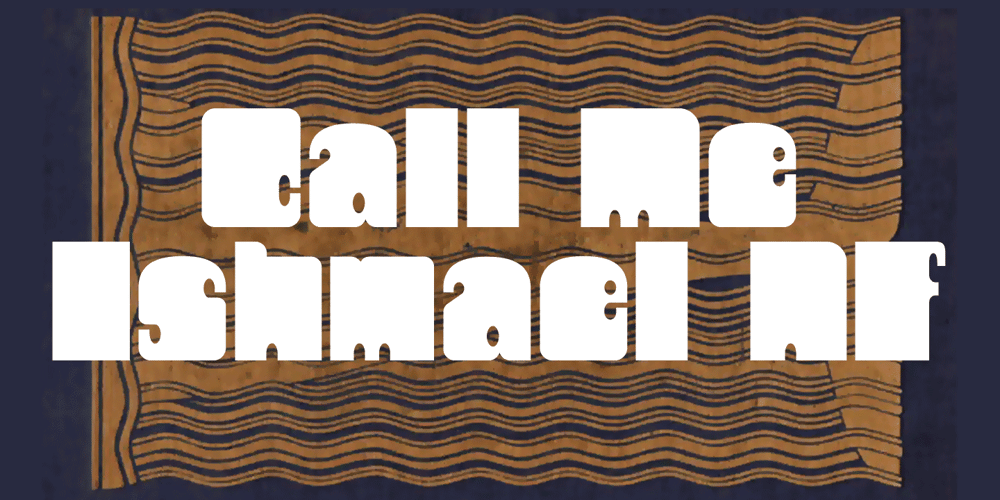
Call Me Ishmael NF
Call Me Ishmael NF Font Family was designed by published by Nick’s Fonts. Call Me Ishmael NF contains 1 styles and family package options. That she blows! Another disco-era delight, this typeface is based on an Affolter and Gschwind release called Moby Dick. Both versions of this font support the Latin 1252, Central European 1250, Turkish 1254 and Baltic 1257 codepages.